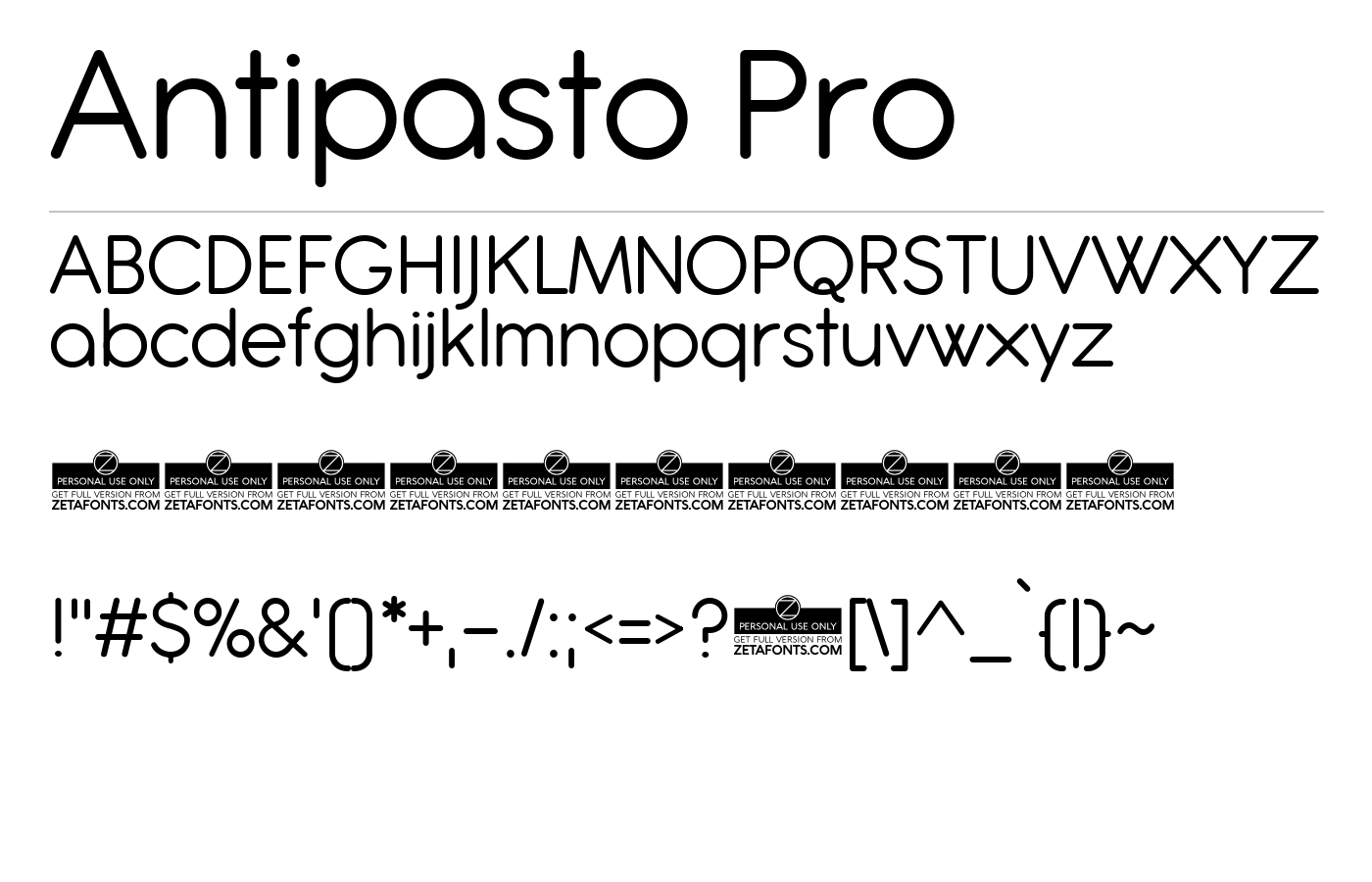
Antipasto Pro is a clean and modern sans serif font with a slightly condensed and tall character structure that lends it a refined, approachable feel. Its smooth, geometric strokes and single-story letterforms create an elegant yet casual personality, making it ideal for branding, editorial headlines, and stylish web use where readability and contemporary charm are key. This font works well for projects seeking a sleek, friendly vibe without sacrificing professionalism.
Antipasto Pro Font
About Antipasto Pro Font
| Designer | Cosimo Lorenzo Pancini |